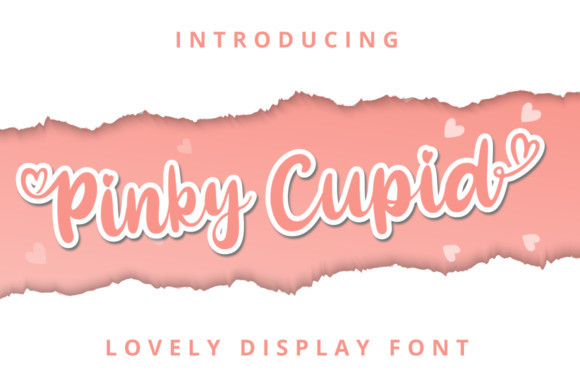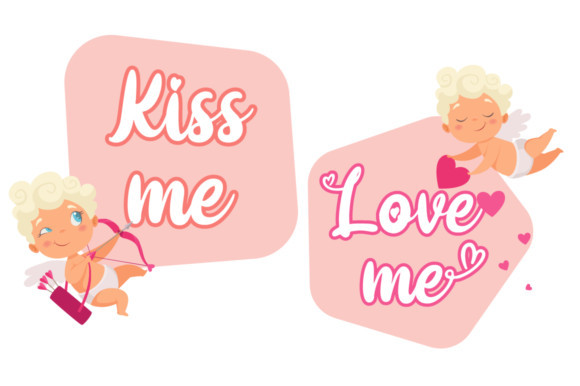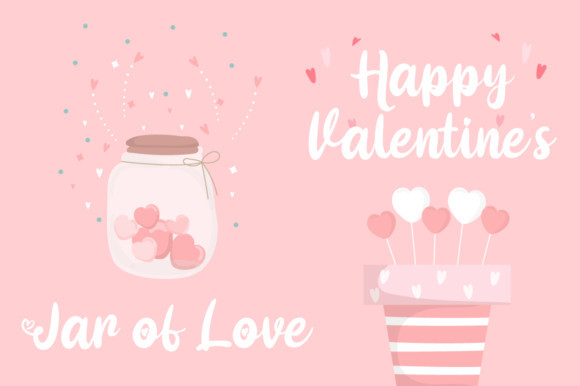
Pinky Cupid Font
Pinky cupid is a beautiful and sweet display font. It’s perfect for book covers, branding, quotes, social media posts and much more!0